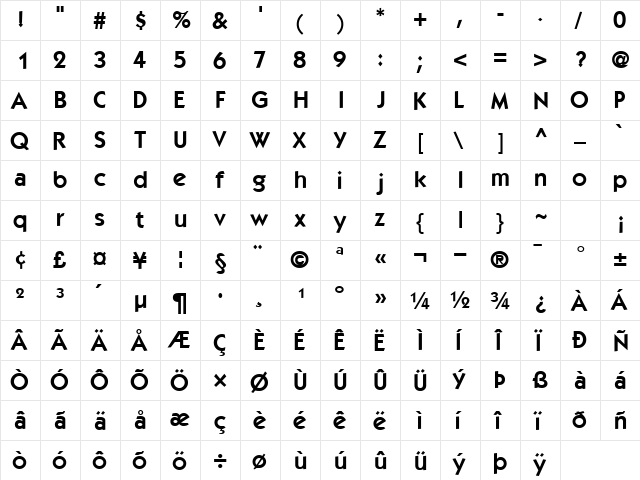
PerformaBookSSK Bold
Design Context for PerformaBookSSK Typeface
PerformaBookSSK offers clean, dependable letterforms without strong stylistic allegiance, making it a practical choice for designers who need flexibility. The heavy weight commands attention and anchors typographic hierarchies.